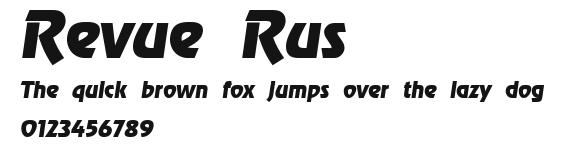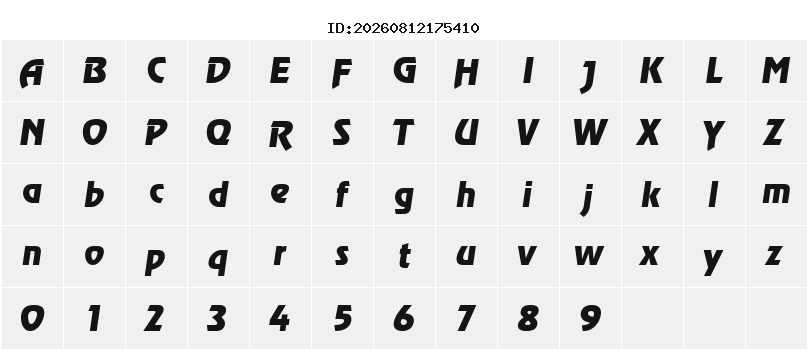
Revue Rus.ttf is a modern, elegant sans-serif font designed for ultimate readability and visual harmony. Perfect for branding, headlines, web design, and print materials.